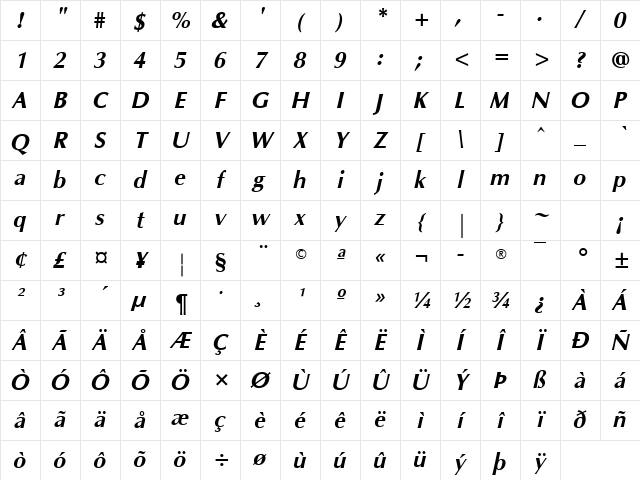
Complete Oklahoma BoldOblique glyph index. Displaying only characters natively supported by Oklahoma BoldOblique font.
Oklahoma is a composed and adaptable typeface that performs quietly and consistently across a wide range of design contexts. The slanted form adds forward momentum and visual energy. Its bold stroke weight gives it real presence on the page.